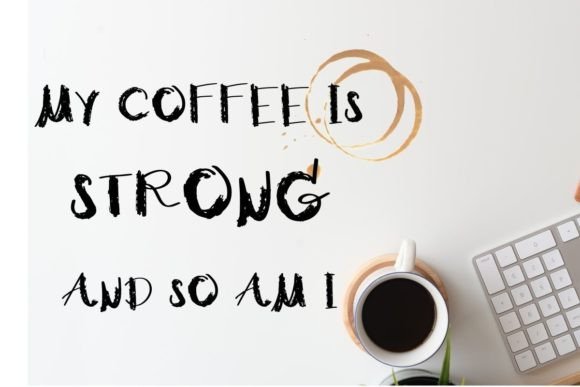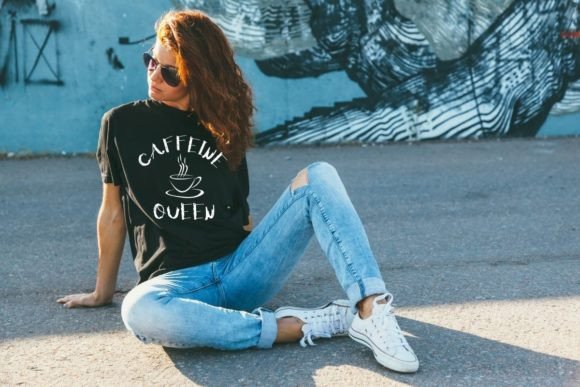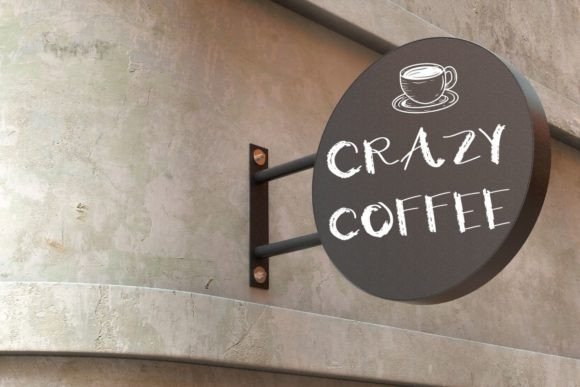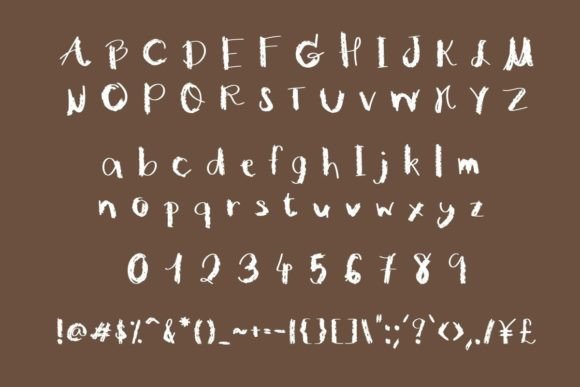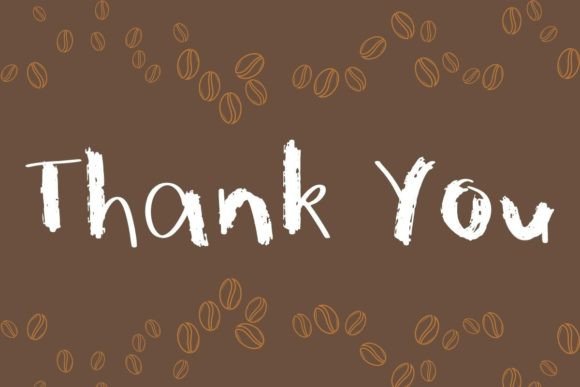
Designing with a Sip of Creativity
Have you ever sipped a hot cup of coffee while brainstorming a new design project, only to be inspired by the rich aroma and warm colors that transport you to a world of creativity? That’s exactly what happened to many designers who stumbled upon the perfect font to bring their ideas to life – the Hot Coffee Font.
This delightful font is more than just a pretty face; it’s a versatile tool designed to add a touch of whimsy and playfulness to any design project. Whether you’re working on a children’s book, a comic, or a poster, the Hot Coffee Font is sure to make your design stand out. Its aesthetic appeal makes it a valuable asset for designers looking to elevate their work and make it more engaging and memorable.
Hot Coffee Font Key Features
- Font Family: Hot Coffee is a sans-serif font family designed specifically for use in coffee shops and restaurants.
- Size: The font family includes a range of weights, from Thin to Bold, with corresponding font sizes to suit various design needs.
- Resolution: Optimized for high-resolution displays, making it perfect for use in digital signage, menus, and other applications where readability is crucial.
- Unique Characteristics: The font’s unique design elements, such as the stylized coffee cup and steam, add a touch of whimsy and personality to any design.
- Language Support: Supports a wide range of languages, including Latin, Cyrillic, and Greek, making it a versatile choice for international applications.
Hot Coffee Font Review
Overall, I was excited to dive into the Hot Coffee Font, but my experience was a bit of a mixed bag.
- Unique Personality: Hot Coffee Font has a quirky, hand-drawn feel that’s sure to grab attention.
- Customization Options: The font offers a range of weights, from light to bold, making it suitable for various design applications.
Limitsations ⚠️
- Limited Character Set: The font’s character set is somewhat limited, making it less suitable for projects requiring extensive typing or coding.
- Legibility Issues: At smaller font sizes, the text can become difficult to read, which may impact the overall user experience.
In conclusion, while Hot Coffee Font has its strengths, its limitations prevent it from being a top choice for my next project. With some additional development, I think this font could really shine. As it stands, I’d recommend it for decorative or branding purposes where legibility isn’t a top concern.
The “Hot Coffee Font” is perfect for:
- Coffee shop menus and branding.
- Food and beverage packaging.
- Event invitations and promotional materials.